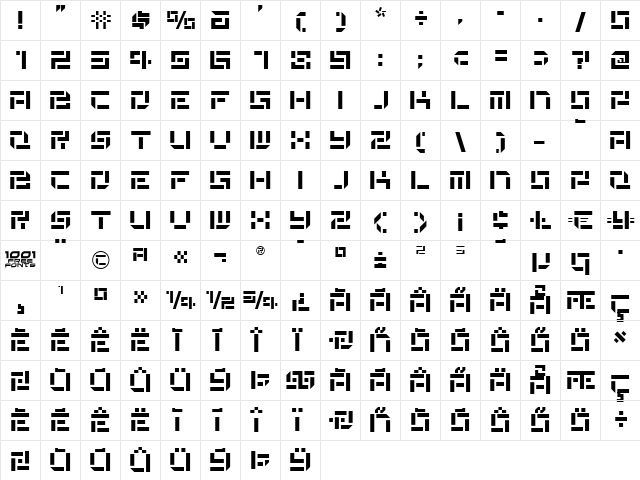
De Stencil NF Regular
Design Context for De Stencil NF Typeface
De Stencil NF borrows the utilitarian aesthetic of stencil lettering, with its characteristic cutaways and no-frills construction lending an industrial edge.
Ideal for industrial branding, streetwear, military-adjacent aesthetics, and urban signage projects.
Pro Tip: Pair De Stencil NF with raw, utilitarian design elements — exposed concrete textures, flat colour, and minimal ornamentation suit it well.